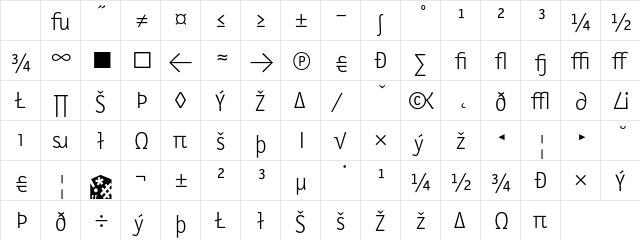
Complete LetterGothicSlangT LightExp glyph index. Displaying only characters natively supported by LetterGothicSlangT LightExp font.
LetterGothicSlangT takes a clean, functional approach - its unadorned letterforms prioritise legibility and work reliably across screen and print environments. Its slender proportions lend an understated elegance to any composition.
Font Pairing: Pair LetterGothicSlangT with a medium or bold serif for headlines - the weight contrast creates an elegant, high-end feel.
Pro Tip: Use LetterGothicSlangT with generous tracking and line-height for the most luxurious effect - light sans-serifs reward spacious, considered layouts.